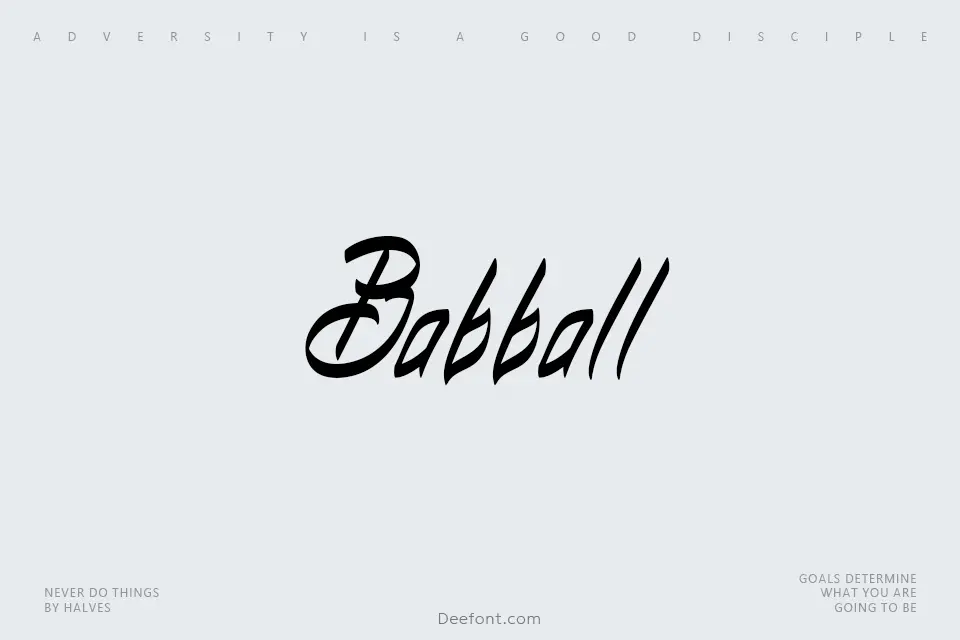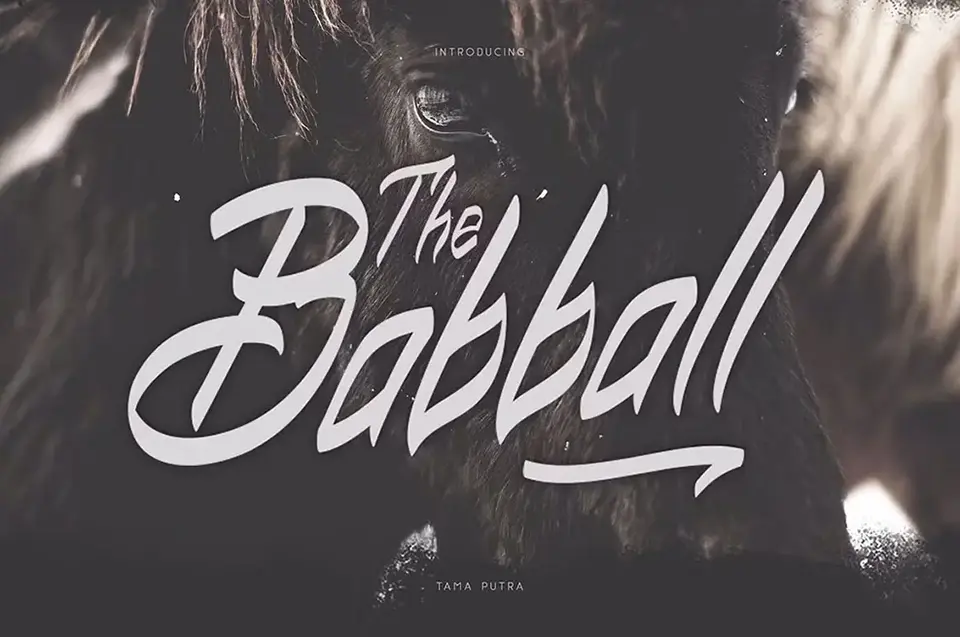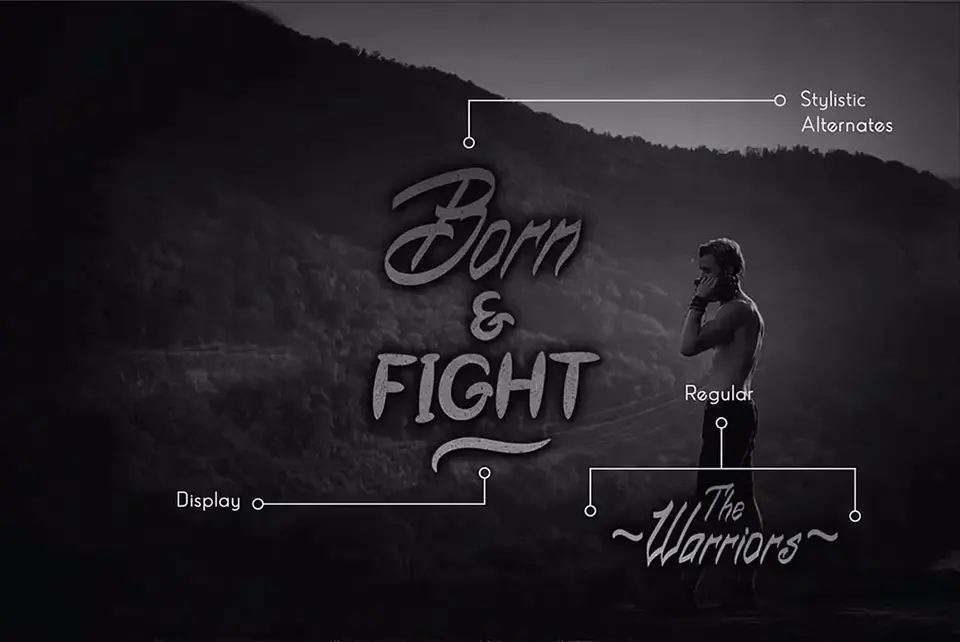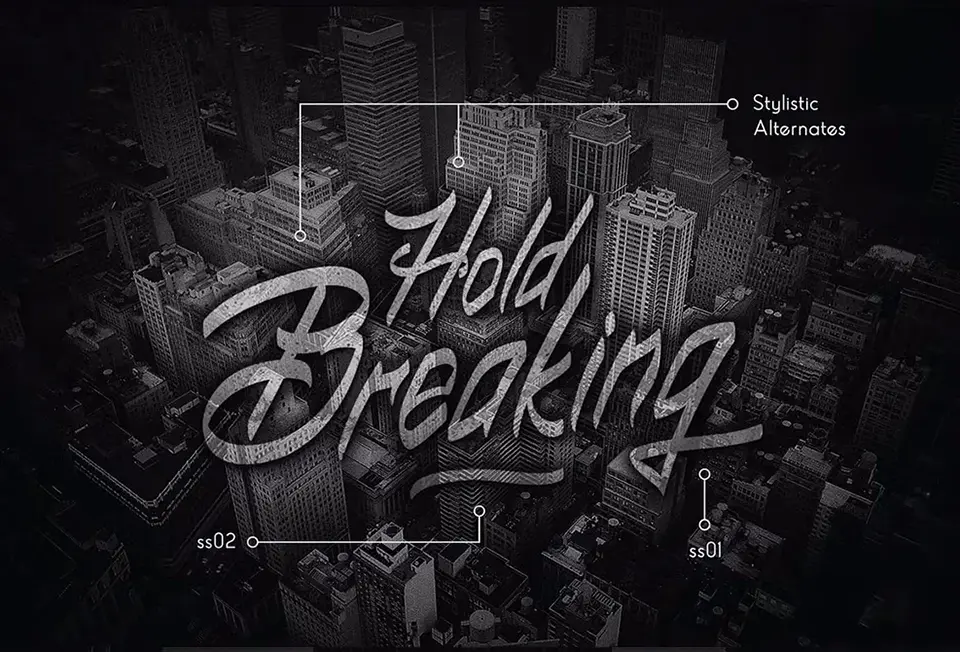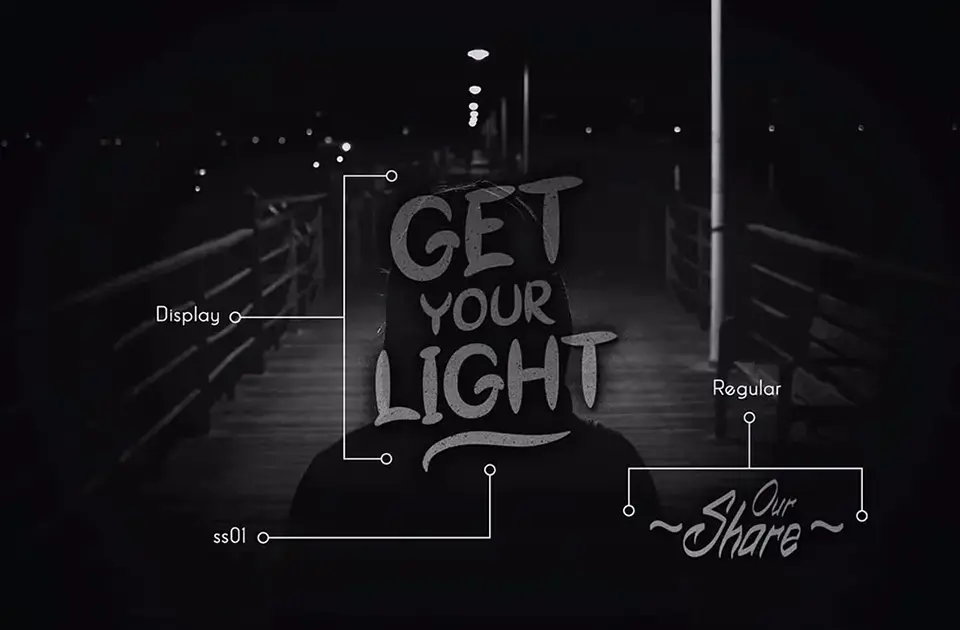
Babball Font
Babball is a vibrant script and graffiti typeface that brings dynamic energy to your creative projects. With its playful, bouncy letterforms and urban street art aesthetic, this font excels at creating eye-catching headlines, posters, branding materials, and display designs. Perfect for contemporary typography that demands personality and visual impact, Babball combines artistic flair with modern sensibility, making it an ideal choice for designers seeking distinctive, expressive lettering solutions.